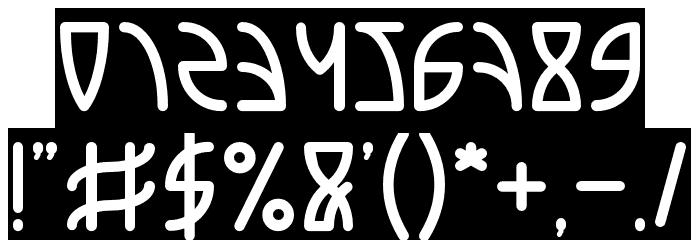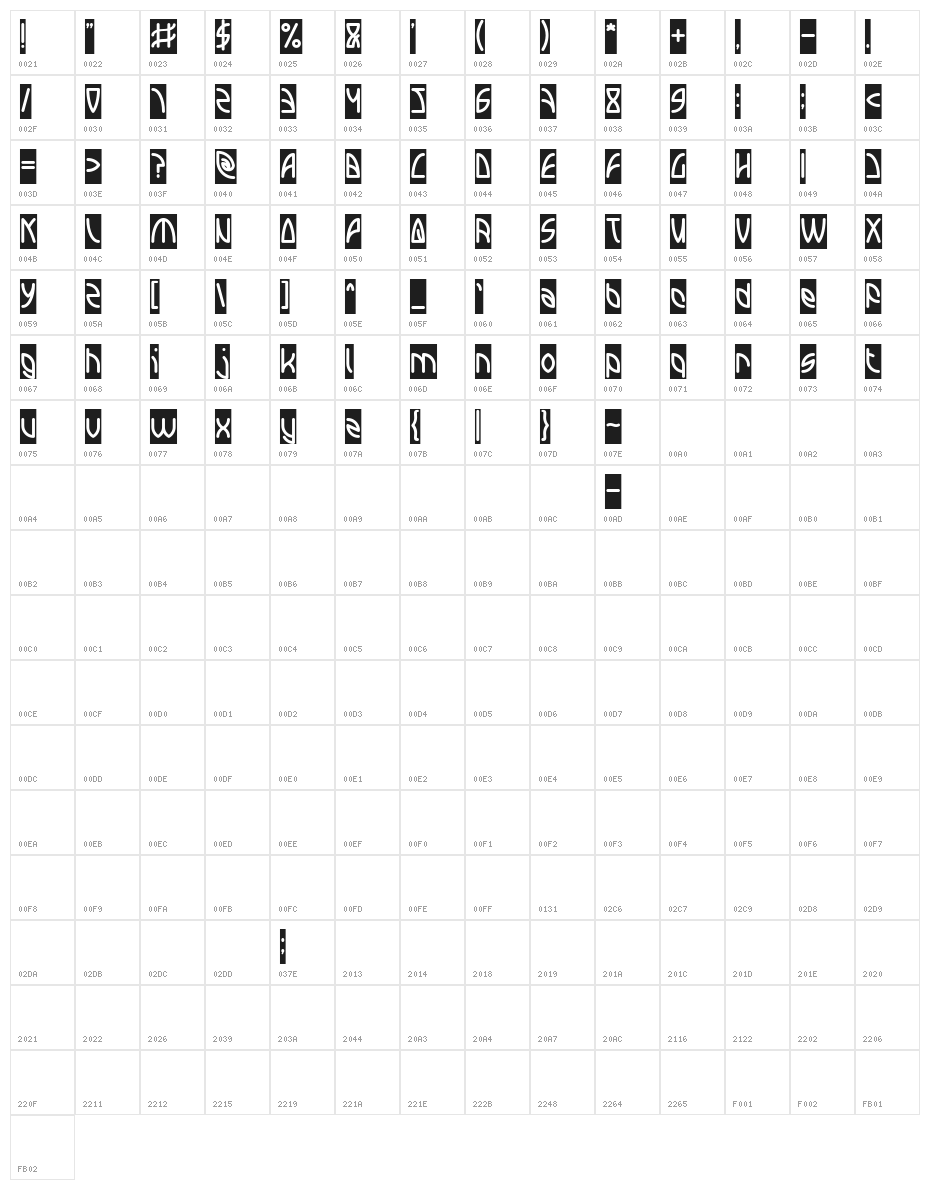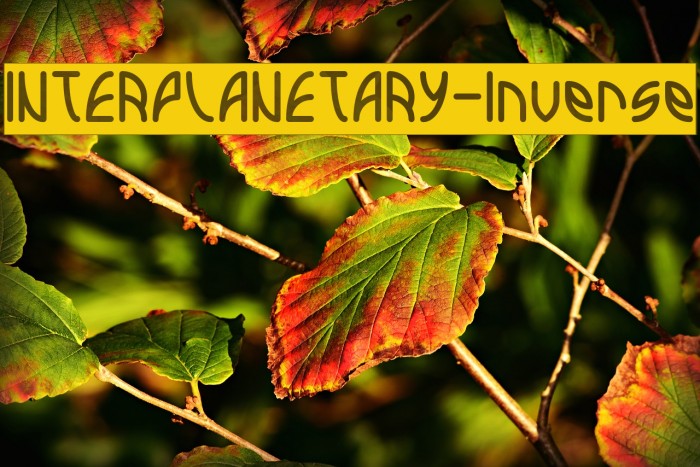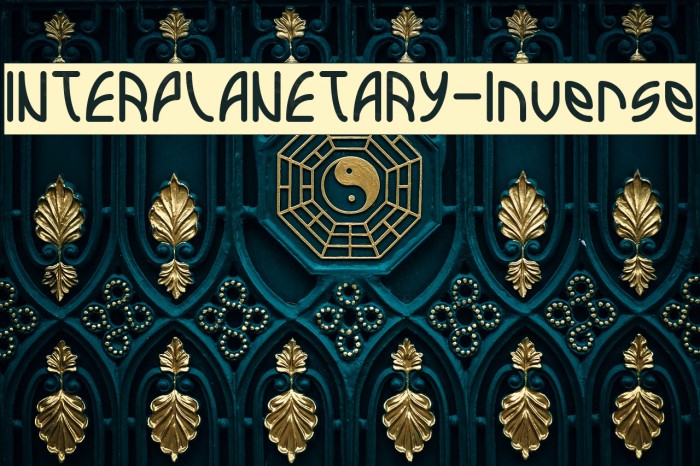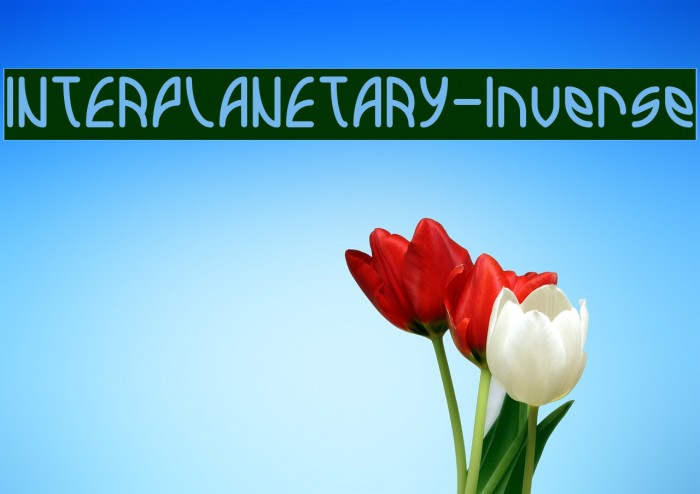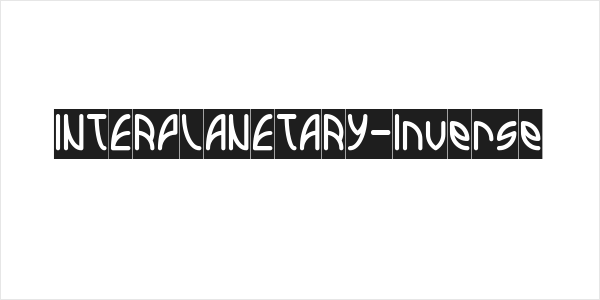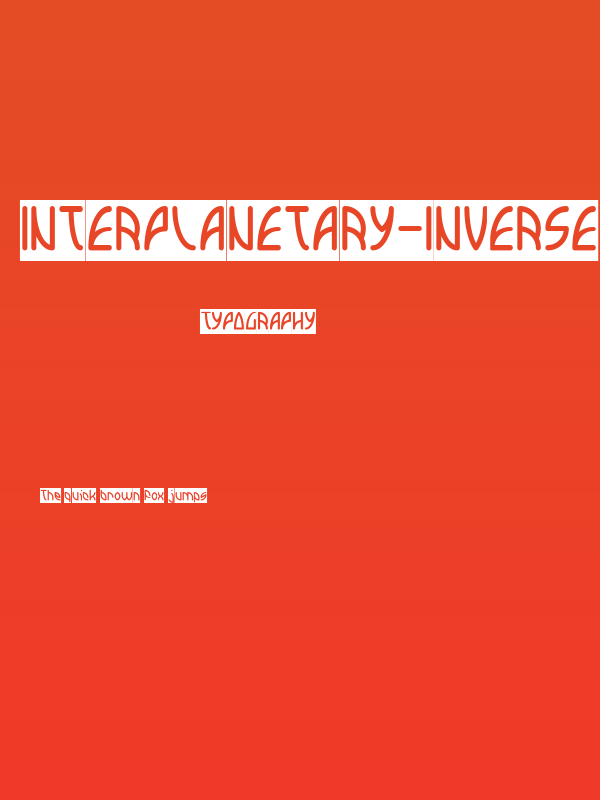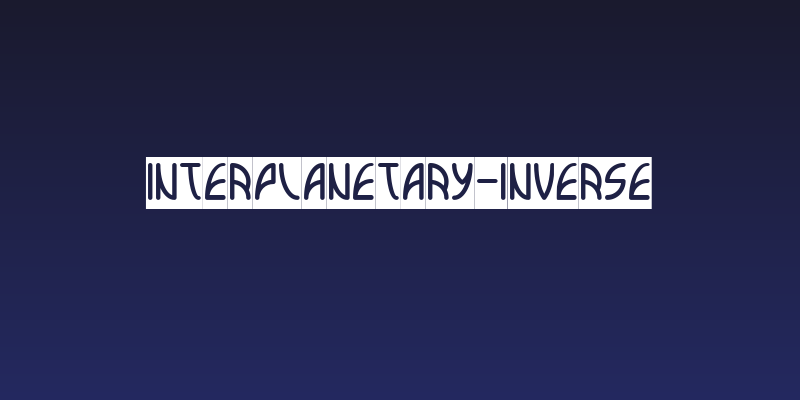
INTERPLANETARY-Inverse Font
INTERPLANETARY-Inverse Description
This font features a futuristic and geometric design, characterized by its unique and stylized letterforms. The characters are composed of bold, rounded lines that create a sense of movement and modernity. The uppercase and lowercase letters maintain a consistent style, with curved edges and a slightly condensed form. The numerals and special characters follow the same design principles, ensuring uniformity across the typeface. This font's distinct appearance makes it ideal for projects that require a contemporary and innovative look.
| Proposed Projects | Ideal for sci-fi themed designs, technology branding, video game interfaces, and modern advertising campaigns. |